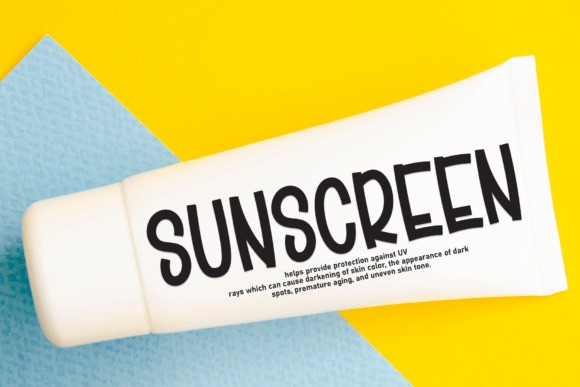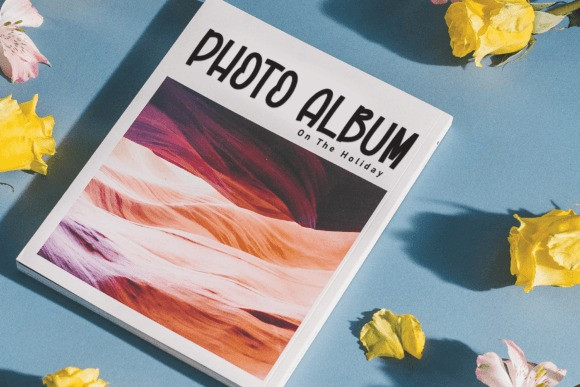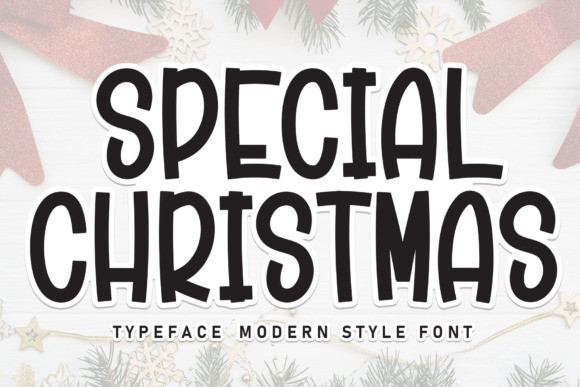
Special Christmas Playful Typeface
Special Christmas Playful Typeface, is a sweet and friendly handwritten font. Its natural and unique style makes it incredibly fitting to a large pool of designs. The only limit is your imagination!